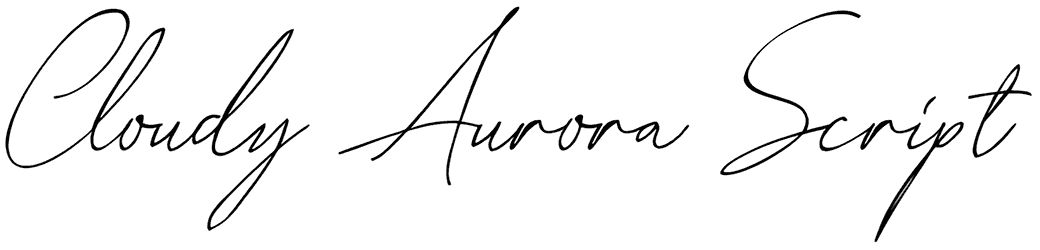
Cloudy Aurora Script Font
Hunting a warm, cursive handwritten font to go over and beyond other competitors in your typography, like Cloudy Aurora Script, here, comes in handy to grow your writing project with its friendly, playful, and sweet smooth body.
Although it may be challenging to read, make sure that it never spares any effort in bringing out your display of greeting cards, headers, album covers, movie titles, and more with its outstanding personalized touch.